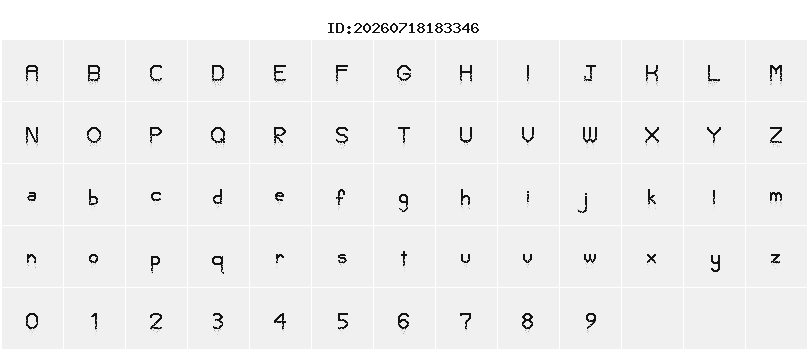
Crumbled Pixels Preview
• Font Name: Crumbled Pixels
• Designer: danengneng
• Description: ‚ÄúCrumbled Pixels‚Äù was built with FontStruct
About Crumbled Pixels.ttf
Crumbled Pixels.ttf is a modern, elegant sans-serif font designed for ultimate readability and visual harmony. Perfect for branding, headlines, web design, and print materials.